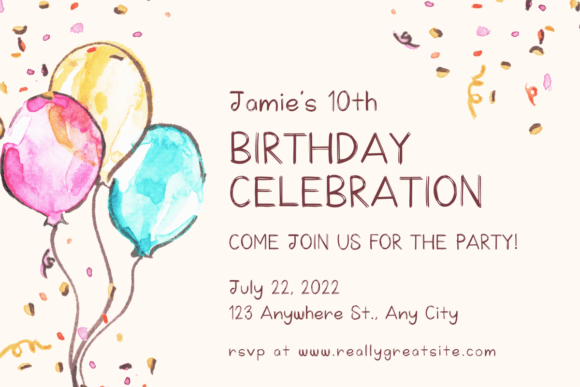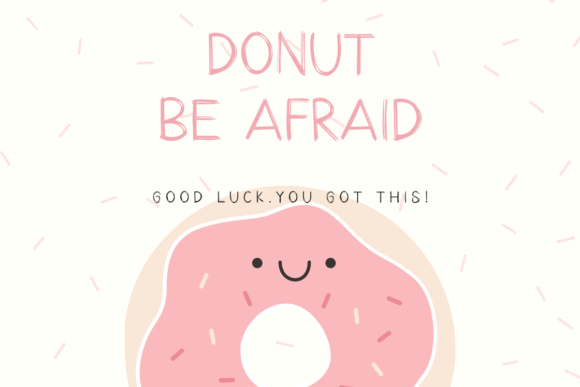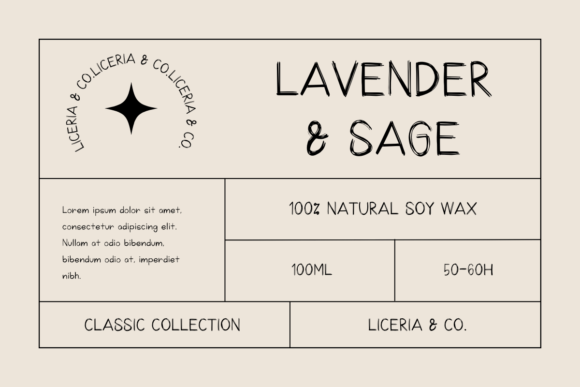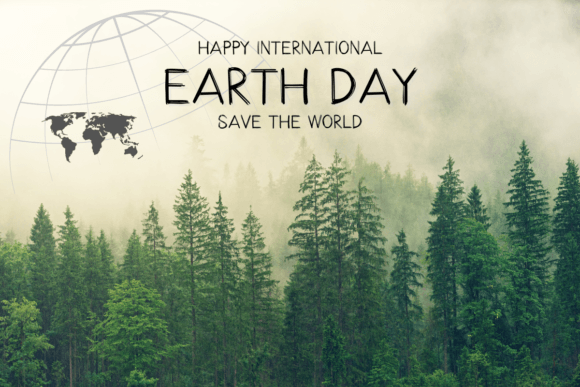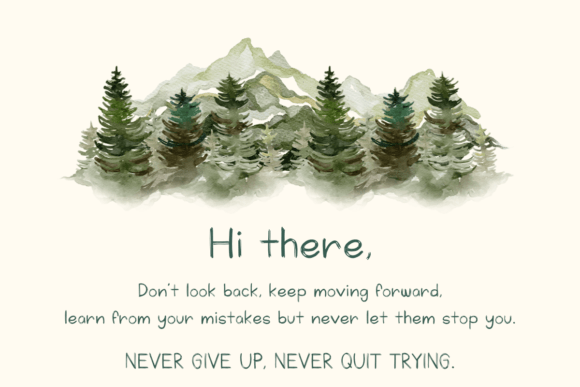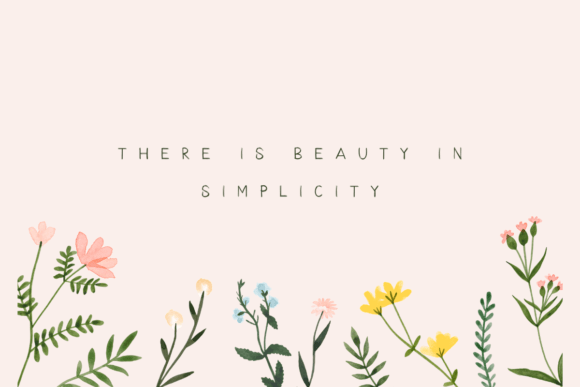
Introduction to Marina Walk Font
Have you ever been working on a creative project, pouring your heart and soul into it, only to find the perfect font to bring it all together? For many designers, that moment is pure magic. And for those who love the charm of handwritten fonts, the Marina Walk Font is sure to be a game-changer. With its unique, casual vibe and versatility, this high-quality font is a must-have in any designer’s arsenal.
Key Features of Marina Walk Font
- High-quality design resource suitable for creative projects, including logos, branding materials, and more.
- Unique, modern design aesthetic, perfect for adding a touch of sophistication to any creative project.
Honest Review: Marina Walk Font
I recently had the chance to work with the Marina Walk Font, and I must say it’s a delightful addition to any creative project. This free download has been a game-changer for me, offering a high-quality design resource that’s perfect for modern designs.
- ✨ The Marina Walk Font has a clean and elegant design that’s perfect for a variety of projects, from logos to brochures.
- ✨ The font is highly customizable, allowing me to adjust the size, color, and style to fit my design needs.
- ✨ The transparent background makes it easy to overlay the font on top of images or other design elements.
- ⚠️ The Marina Walk Font only comes in a single style, which may limit its versatility for more complex projects.
- ⚠️ The font may not be suitable for projects that require a more dramatic or bold font style.
Overall, I’m thoroughly impressed with the Marina Walk Font. It’s a high-quality design resource that’s perfect for creative projects. With its clean design and customizable options, it’s a great addition to any designer’s toolkit. Just be aware of its limitations, and you’ll be all set to create stunning designs with this font.
Tips for Getting the Most Out of Marina Walk Font
To get the most out of the Marina Walk Font, consider the following tips:
- Experiment with different font sizes and styles to create a visually appealing design.
- Use the Marina Walk Font in conjunction with other design elements, such as images and graphics, to add depth and interest to your design.
- Take advantage of the font’s transparent background feature to create a seamless design experience.
The Marina Walk Font is ideal for a variety of creative projects, including:
- Business cards and stationery
- Print-on-demand products, such as t-shirts and mugs
Alternatives to Marina Walk Font
Pacifico is a high-quality, elegant script font ideal for creative projects that require a touch of sophistication. Its transparent background makes it perfect for use on logos, invitations, and other design elements. Download Pacifico for free to elevate your design resource.
Compared to Marina Walk Font, Pacifico offers a more refined and polished look, making it suitable for formal events and high-end branding. While Marina Walk Font has a more playful and casual vibe, Pacifico is ideal for projects that demand a level of sophistication and elegance.
Great Vibes is a free, high-quality font that exudes a carefree and playful spirit. Its open and airy design makes it perfect for use on posters, flyers, and other creative projects that require a sense of fun and energy. Great Vibes is also great for use on social media and websites.
Is the Marina Walk Font suitable for large-scale designs?
Yes, the Marina Walk Font is designed to be scalable and suitable for large-scale designs. Its high-quality vector format ensures that it remains crisp and clear even at high resolutions and sizes. However, please note that extreme scaling may affect the font’s legibility, so it’s best to use it within reasonable size limits.